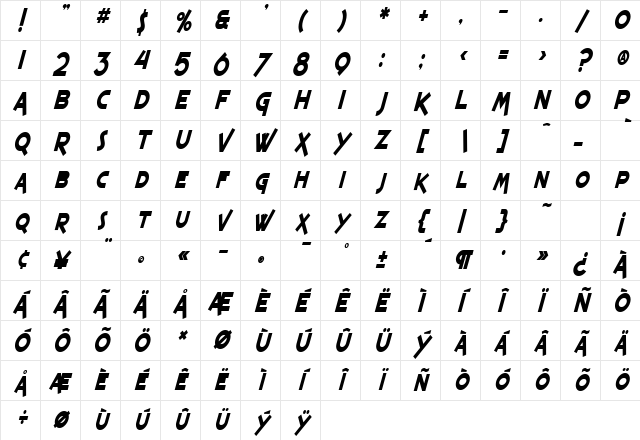
Complete SF Espresso Shack Condensed Bold Italic glyph index. Displaying only characters natively supported by SF Espresso Shack Condensed Bold Italic font.
SF Espresso Shack Condensed is a composed and adaptable typeface that performs quietly and consistently across a wide range of design contexts. The slanted form adds forward momentum and visual energy. Its bold stroke weight gives it real presence on the page. Its narrow stance lets it pack a punch even in space-constrained designs.
Pro Tip: Use SF Espresso Shack Condensed for emphasis, pull quotes, and subheadings where its slanted energy can add rhythm to the layout.